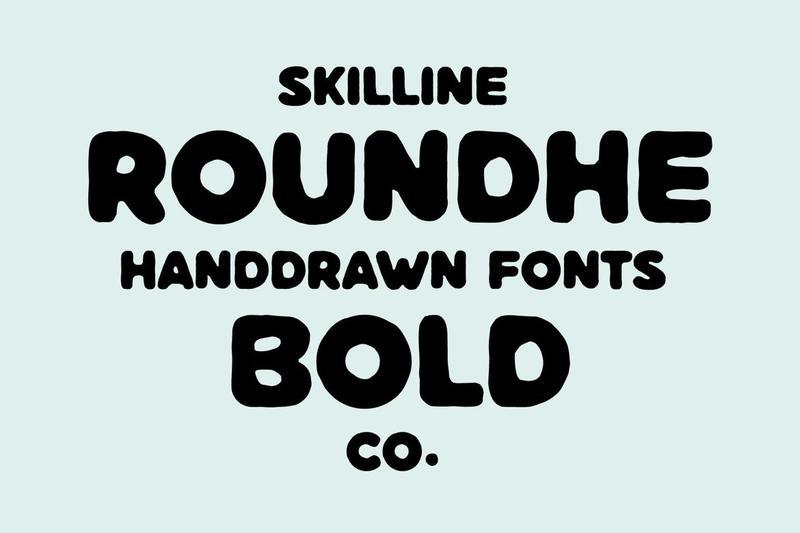
Roundhe is a bold rough-edged display typeface inspired by vintage sign painting and hand-drawn bubble lettering. Featuring chunky rounded shapes and handcrafted imperfections, it delivers a playful retro energy that feels warm, friendly, and full of character. Designed to balance boldness with softness, Roundhe brings strong visual impact while maintaining an approachable handmade charm perfect for expressive and fun design projects.
* Display Typeface with Rounded Letterforms
* Handcrafted Texture & Rough Edges
* Bold, Playful Character